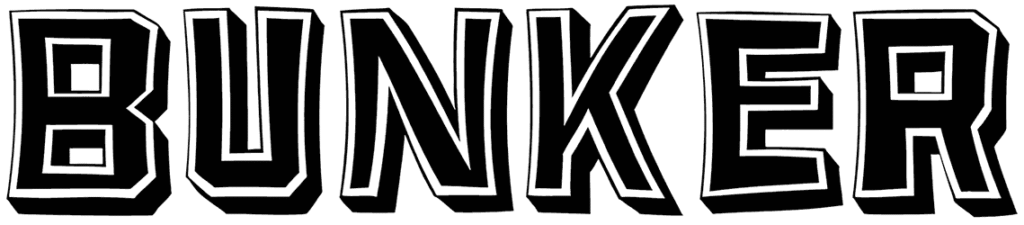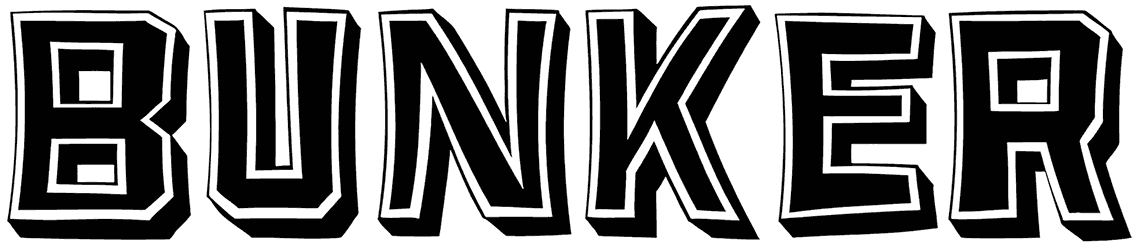
Bunker Font
Bunker is mostly known for its excellent legibility and chunky characters that lead to a feeling of jauntiness, classic, and momentum. This all-caps 3D font might look insanely fit for a wide range of graphic content, in…
Bunker is mostly known for its excellent legibility and chunky characters that lead to a feeling of jauntiness, classic, and momentum. This all-caps 3D font might look insanely fit for a wide range of graphic content, including merchandise, business cards, book covers, or social media posts.
This display font would be your survivor in hard situations, so try it in your visual projects and achieve the best possible outcomes.